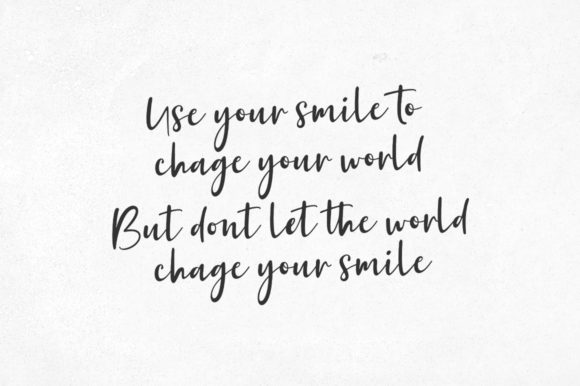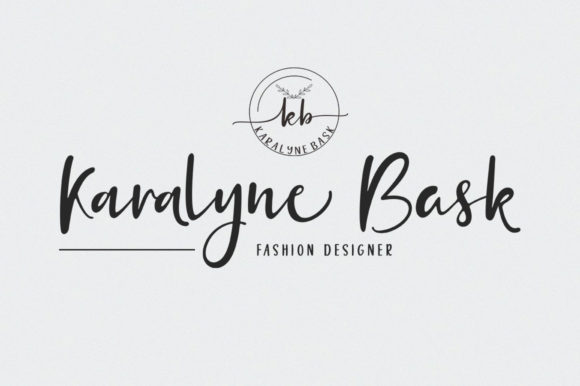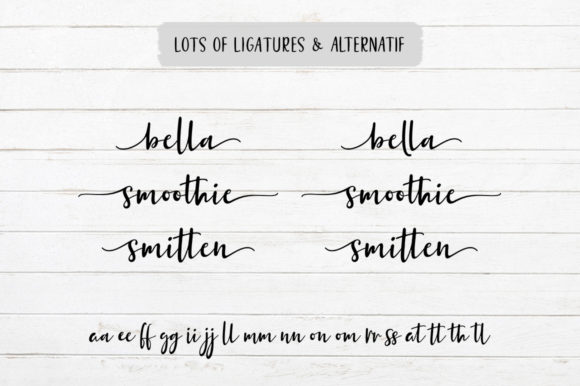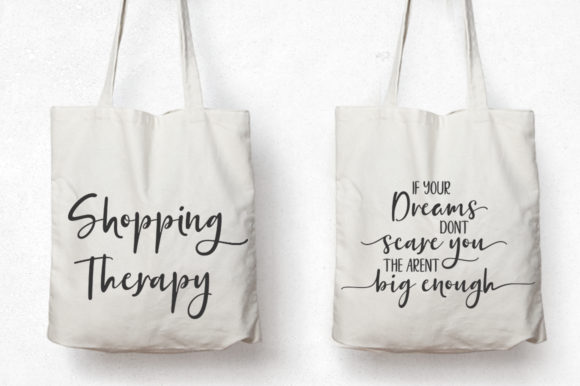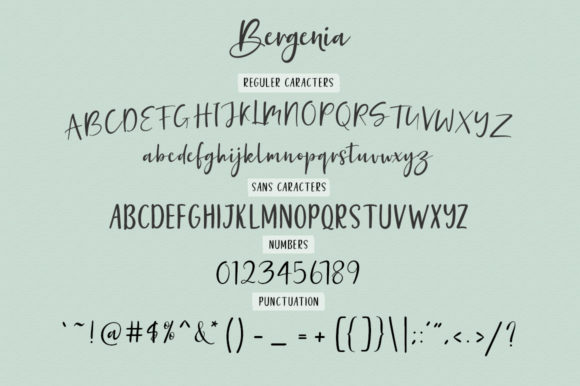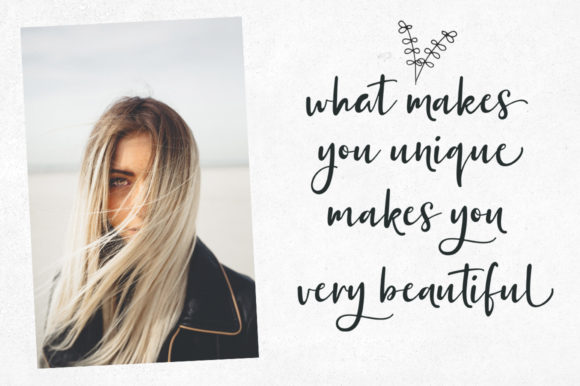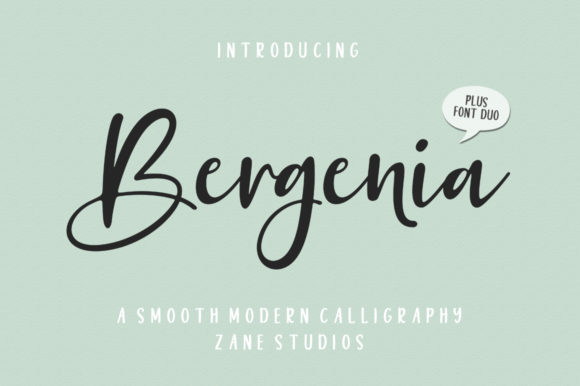
Bergenia Duo Font: Elevate Your Design with a Modern Script
Bergenia is a modern script duo with a stunning vibe. It will add a natural flow to any design project! If you’re a designer or crafter looking for a font that can bring a touch of elegance and sophistication to your work, look no further than Bergenia. In this article, we’ll dive into the world of Bergenia Duo Font and explore its features, benefits, and uses.
What is Bergenia Duo Font?
Bergenia Duo Font is a modern script font that consists of two complementary fonts: Bergenia and Bergenia Italic. The font is designed to provide a natural flow and a stunning vibe to any design project. With its elegant and cursive lines, Bergenia Duo Font is perfect for adding a touch of sophistication to your designs.
Key Features of Bergenia Duo Font
• Modern Script Design: Bergenia Duo Font features a modern script design with elegant and cursive lines.
• Two Complementary Fonts: The font comes with two complementary fonts: Bergenia and Bergenia Italic.
• Natural Flow: Bergenia Duo Font is designed to provide a natural flow to any design project.
• Stunning Vibe: The font has a stunning vibe that can add a touch of elegance and sophistication to your designs.
• Multilingual Support: Bergenia Duo Font supports multiple languages, making it a great choice for designers who work with international clients.
Benefits of Using Bergenia Duo Font
So, why should you use Bergenia Duo Font in your design projects? Here are some benefits of using this amazing font:
• Elegance and Sophistication: Bergenia Duo Font can add a touch of elegance and sophistication to your designs.
• Versatility: The font is versatile and can be used in a variety of design projects, from branding and advertising to packaging and web design.
• Easy to Read: Bergenia Duo Font is easy to read, making it perfect for body text and headings.
• Unique and Creative: The font has a unique and creative design that can help your designs stand out from the crowd.
Uses of Bergenia Duo Font
Bergenia Duo Font is a versatile font that can be used in a variety of design projects. Here are some uses of this amazing font:
• Branding and Advertising: Use Bergenia Duo Font to create elegant and sophisticated branding and advertising materials, such as logos, brochures, and flyers.
• Packaging Design: The font is perfect for packaging design, adding a touch of elegance and sophistication to product labels and packaging.
• Web Design: Bergenia Duo Font can be used in web design to create elegant and sophisticated website headers, titles, and body text.
• Stationery and Print Materials: Use Bergenia Duo Font to create elegant and sophisticated stationery and print materials, such as business cards, letterheads, and invoices.
Tips for Using Bergenia Duo Font
Here are some tips for using Bergenia Duo Font in your design projects:
• Use it as a Headline Font: Use Bergenia Duo Font as a headline font to add a touch of elegance and sophistication to your designs.
• Pair it with Other Fonts: Pair Bergenia Duo Font with other fonts to create a unique and creative design.
• Experiment with Colors: Experiment with different colors to find the perfect combination that works with Bergenia Duo Font.
• Keep it Simple: Keep your design simple and elegant, and let Bergenia Duo Font do the talking.
In conclusion, Bergenia Duo Font is a modern script font that can add a touch of elegance and sophistication to any design project. With its elegant and cursive lines, natural flow, and stunning vibe, this font is perfect for designers and crafters who want to create unique and creative designs. Whether you’re working on a branding project, packaging design, web design, or stationery and print materials, Bergenia Duo Font is a great choice. So, download Bergenia Duo Font today and elevate your design to the next level!